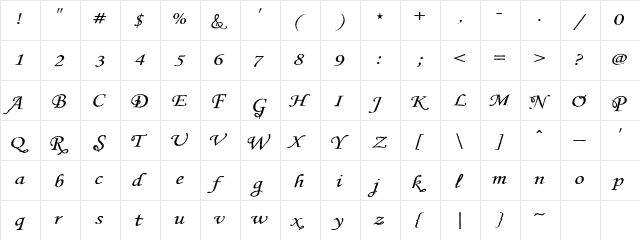
LDJ Aunt Elizabeth Regular
Design Context for LDJ Aunt Elizabeth Typeface
LDJ Aunt Elizabeth is a composed and adaptable typeface that performs quietly and consistently across a wide range of design contexts.